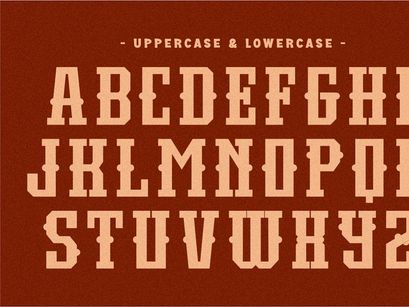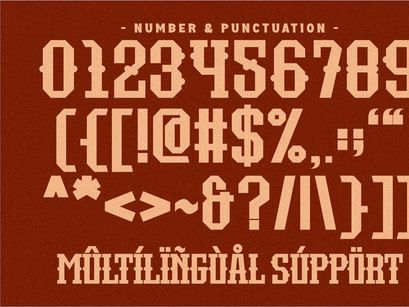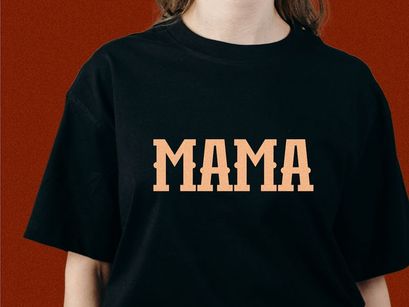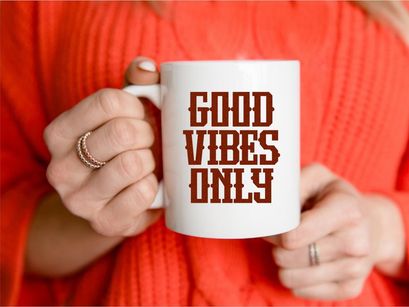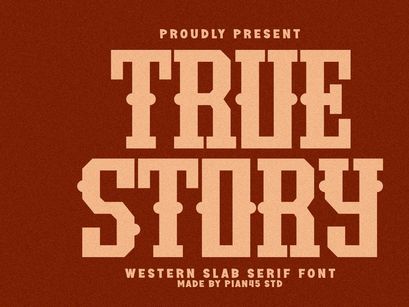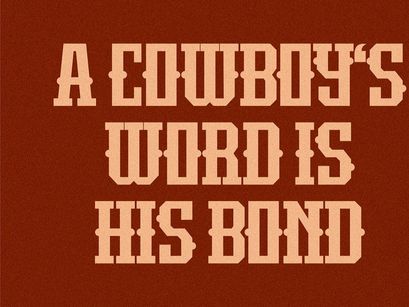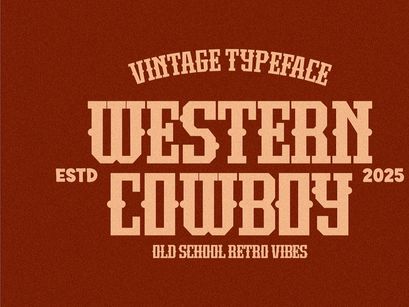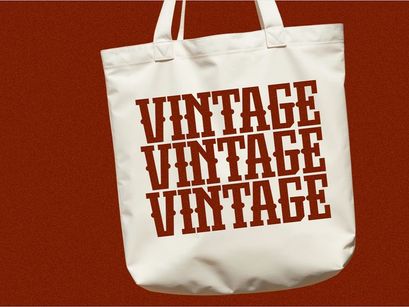
True Story - Western Slab Serif FontPremium
True Story - Western Slab Serif Font
TRUE STORY is a rugged, high-impact Vintage Western Slab Serif font, essential for authentic branding and retro display needs. This bold typeface is engineered for powerful logo design, apparel merchandise, and vintage packaging, capturing the classic old West aesthetic. Perfect for designers seeking a dependable condensed slab serif with a strong, memorable presence for posters and headlines. Get this top-tier display font for all your commercial projects now.